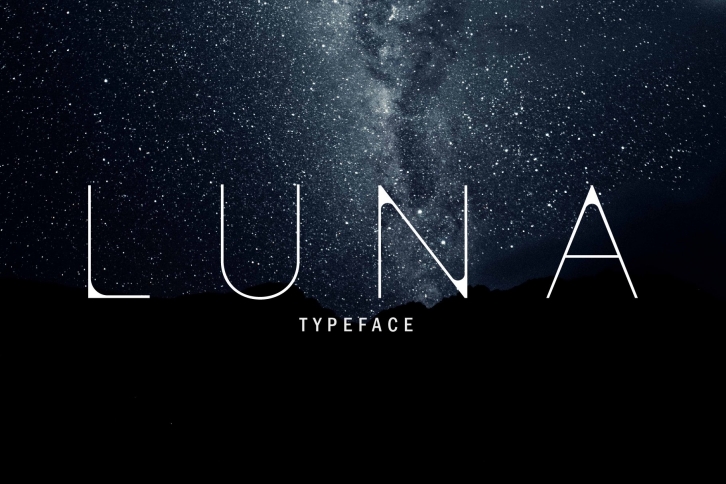
LUNA Typeface FONT Download
LUNA is a sans serif font inspired by a minimalistic and geometric design. LUNA is a versatile sans-serif typeface, containing 5 different weights (Extra Light, Light, Regular, SemiBold, Bold). This font displays a high contrast using round corners and thin lines to make an appealing and elegant type. It's perfect for titles, poster, logo, magazine, cover, banner, T-shirt and headers, logo and other any business-related.